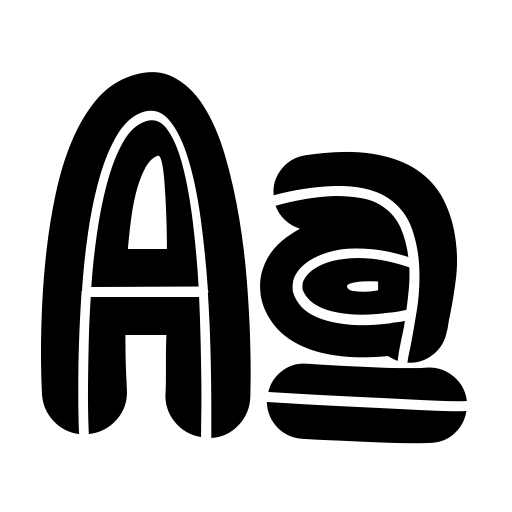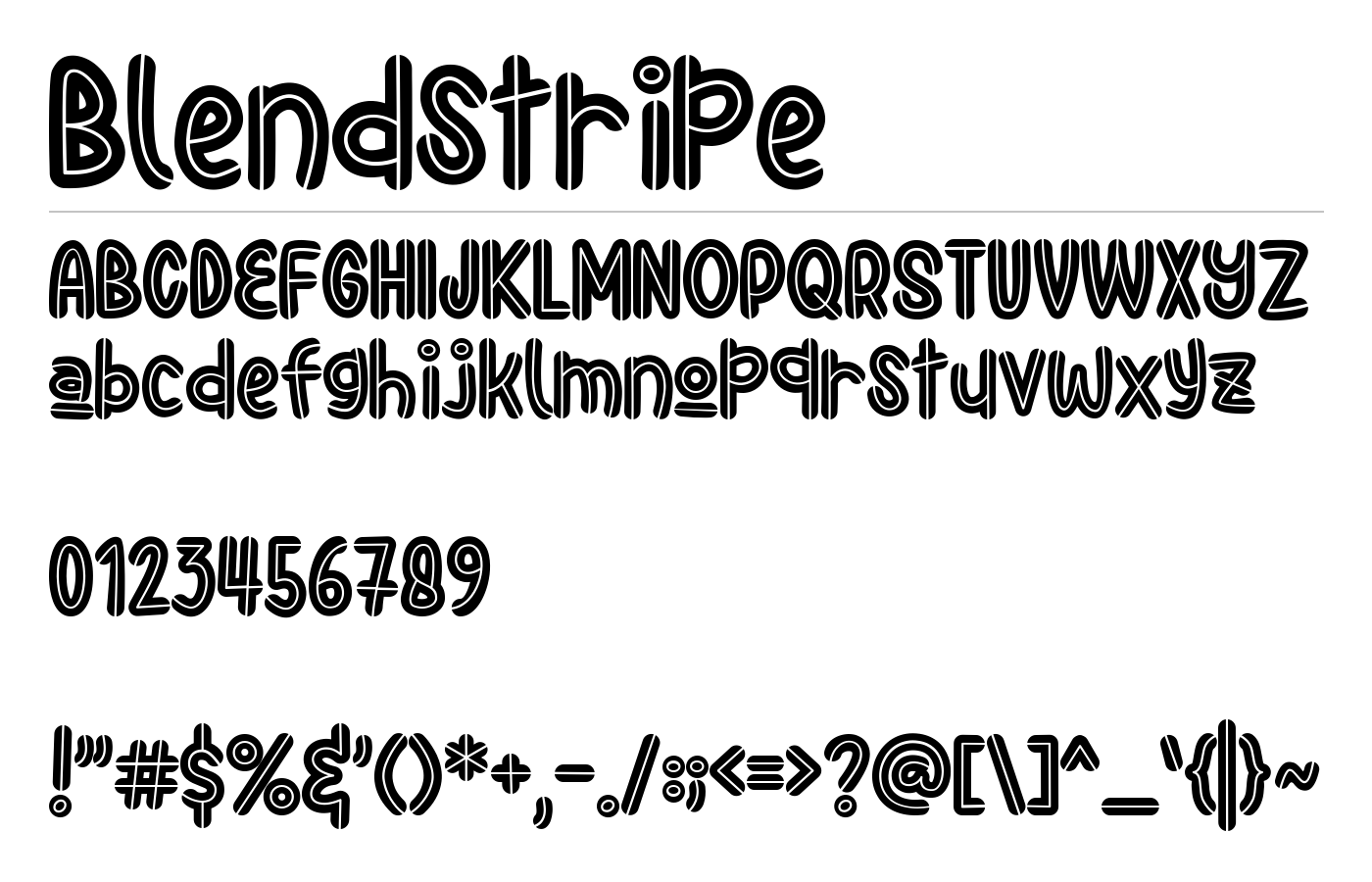
Blendstripe is a playful and bold sans serif font featuring thick, rounded letterforms with lively double stripe outlines that add a fun, energetic vibe. Its strong character shapes and unique striped detailing make it perfect for eye-catching headlines, posters, and branding that aims to stand out with a friendly and creative feel. This font works well in designs targeting children, entertainment, or casual, modern themes where personality and readability are key.
Blendstripe Font